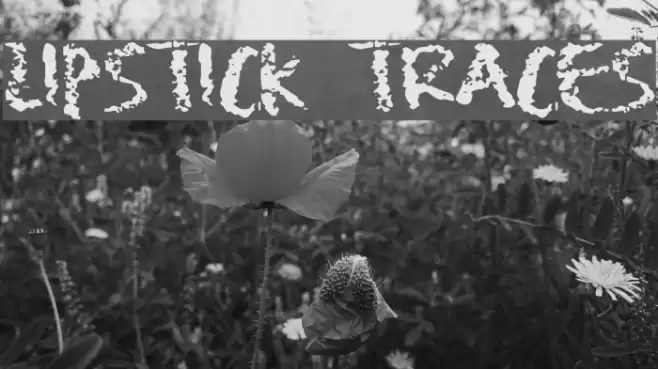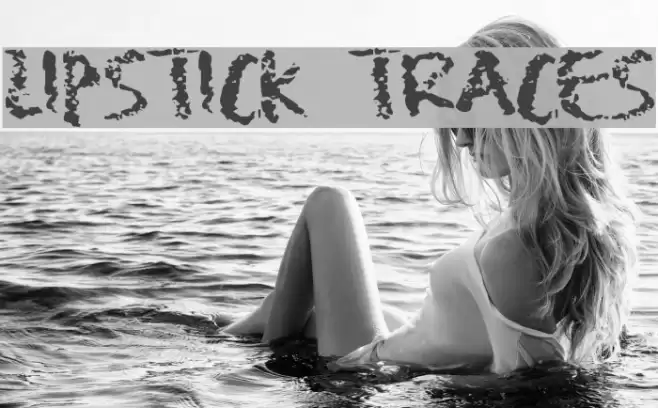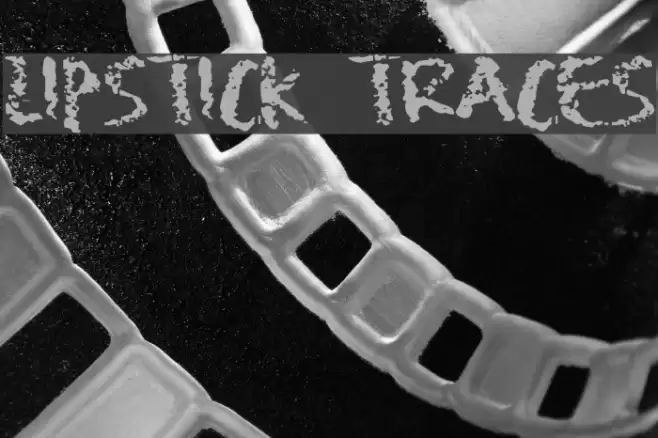
Lipstick Traces Font
Lipstick Traces Description
This font features a unique, distressed style that mimics the appearance of lipstick smudges or traces. The characters are bold and have an irregular, textured edge, giving them a dynamic and edgy look. The uppercase and lowercase letters maintain a consistent style, with each character appearing as if it has been drawn with a lipstick brush. The font is highly decorative, making it ideal for projects that require a bold statement or a touch of rebellious flair. The overall appearance is both playful and dramatic, capturing attention with its unconventional design.
A bold, distressed font resembling lipstick smudges, perfect for dramatic and playful designs from Script fonts.
- Proposed Projects: Ideal for fashion magazines, beauty product branding, event posters, and creative social media graphics.
- Contrast: High
- Use Case: Logos, Headlines, Posters